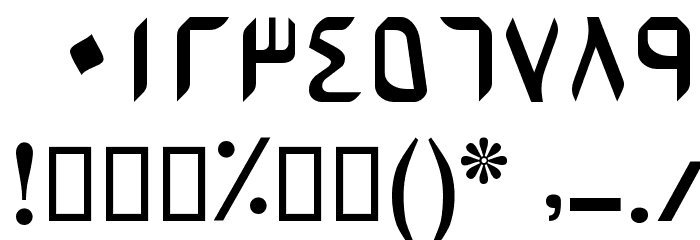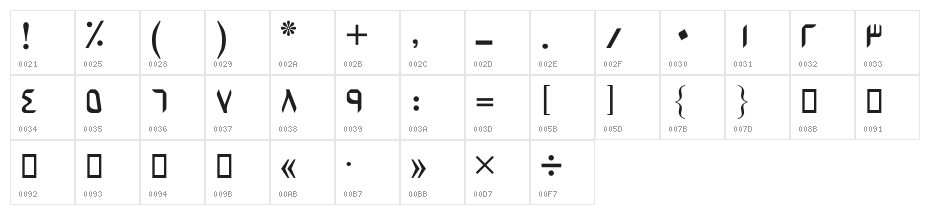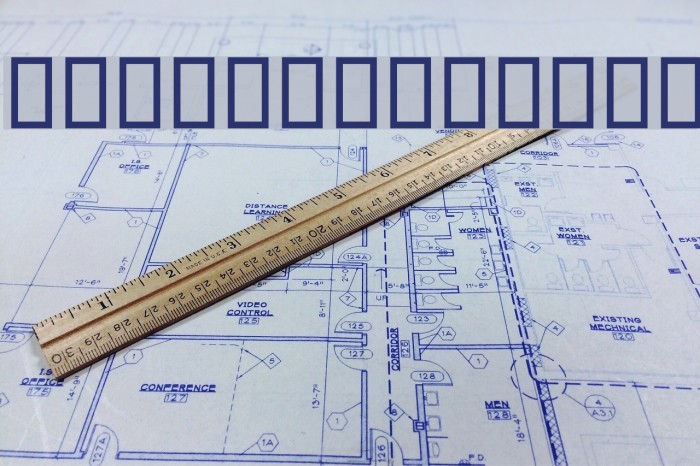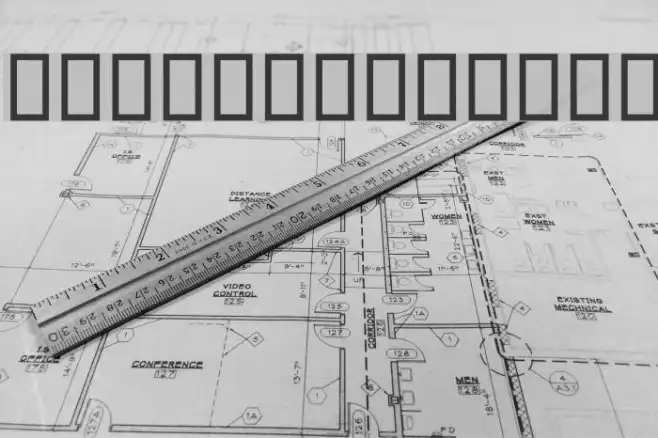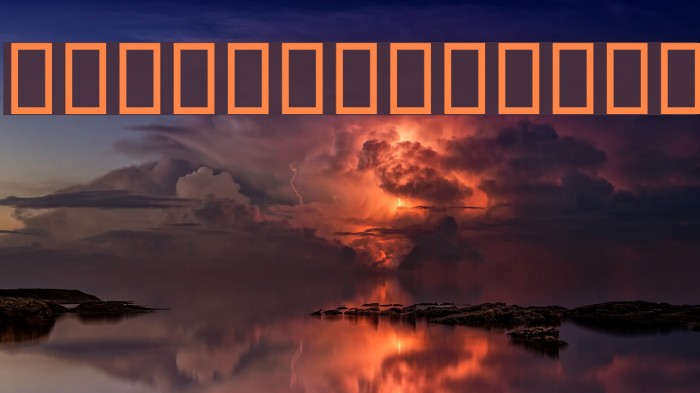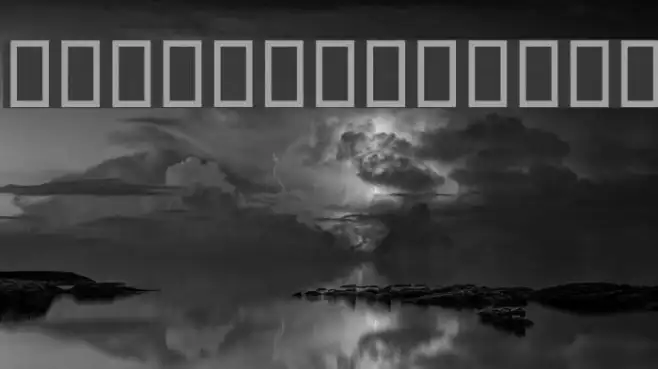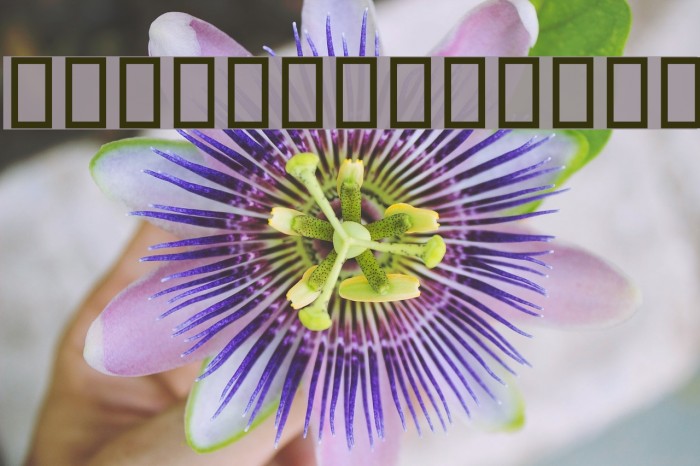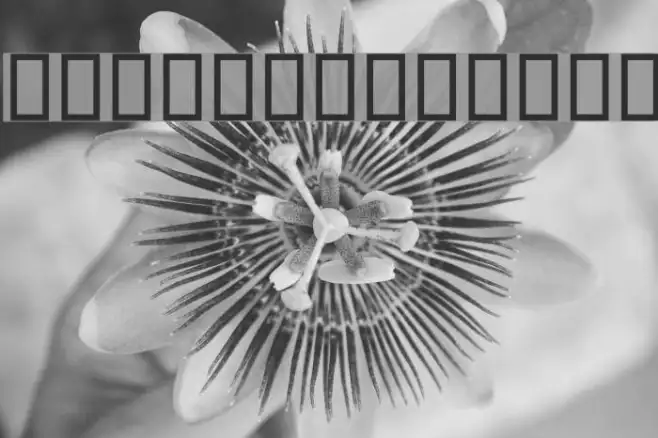
Ariana Font
Ariana Description
This font features a futuristic and geometric design with angular and sharp edges. The characters are bold and have a unique style that resembles a blend of modern digital aesthetics and ancient script influences. The numbers and special characters maintain the same angular theme, providing a cohesive look across all glyphs. The font is highly stylized, making it suitable for projects that require a distinctive and eye-catching appearance.
| Proposed Projects | Ideal for sci-fi themed projects, video game titles, technology branding, and futuristic posters. |